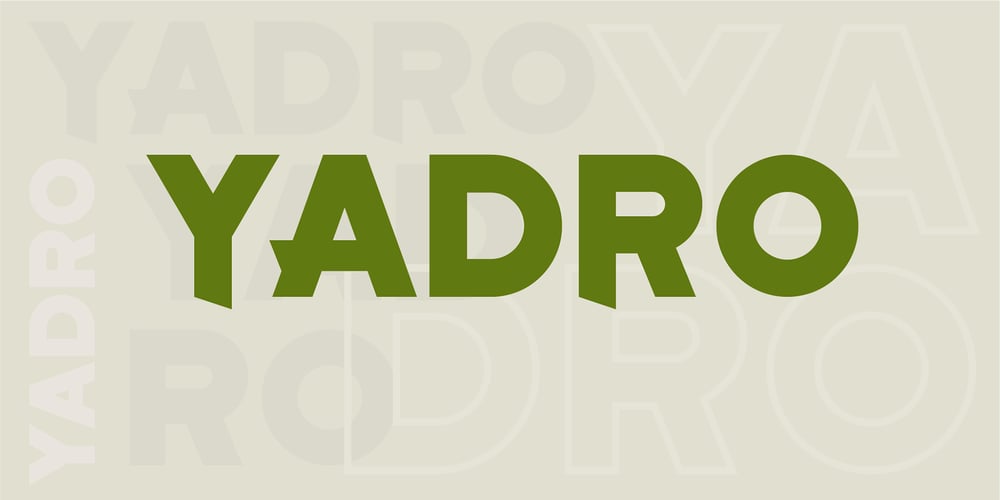
Yadro Font Family was designed by Volodymyr Berla and published by VladB. Yadro contains 5 styles and family package options. Yadro is a massive modern sans serif geometric font, includes upper and lower case characters, Latin, Cyrillic, Latin Eastern Europe, Turkish, Baltic and other.The Yadro family contains 5 fonts of different lettering variations.Yadro black fonts will be useful in developing a brand, creating posters and other graphic products, and for word processing.